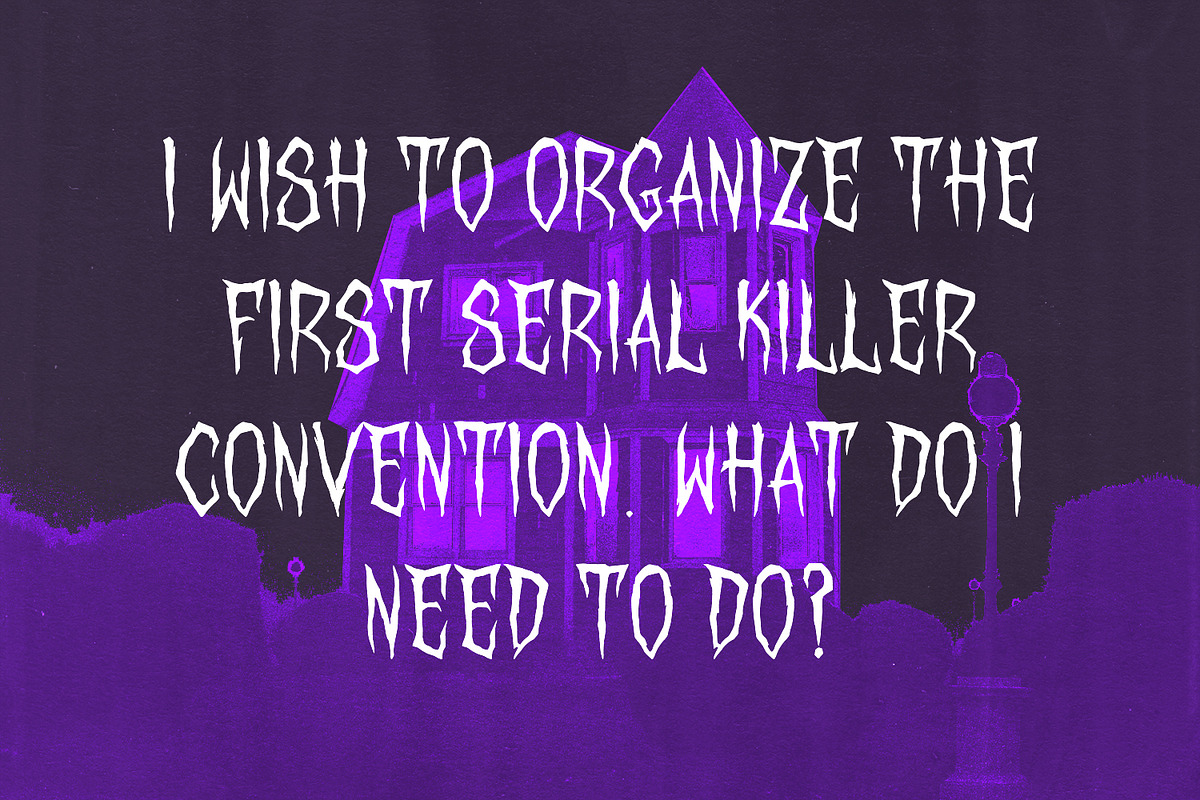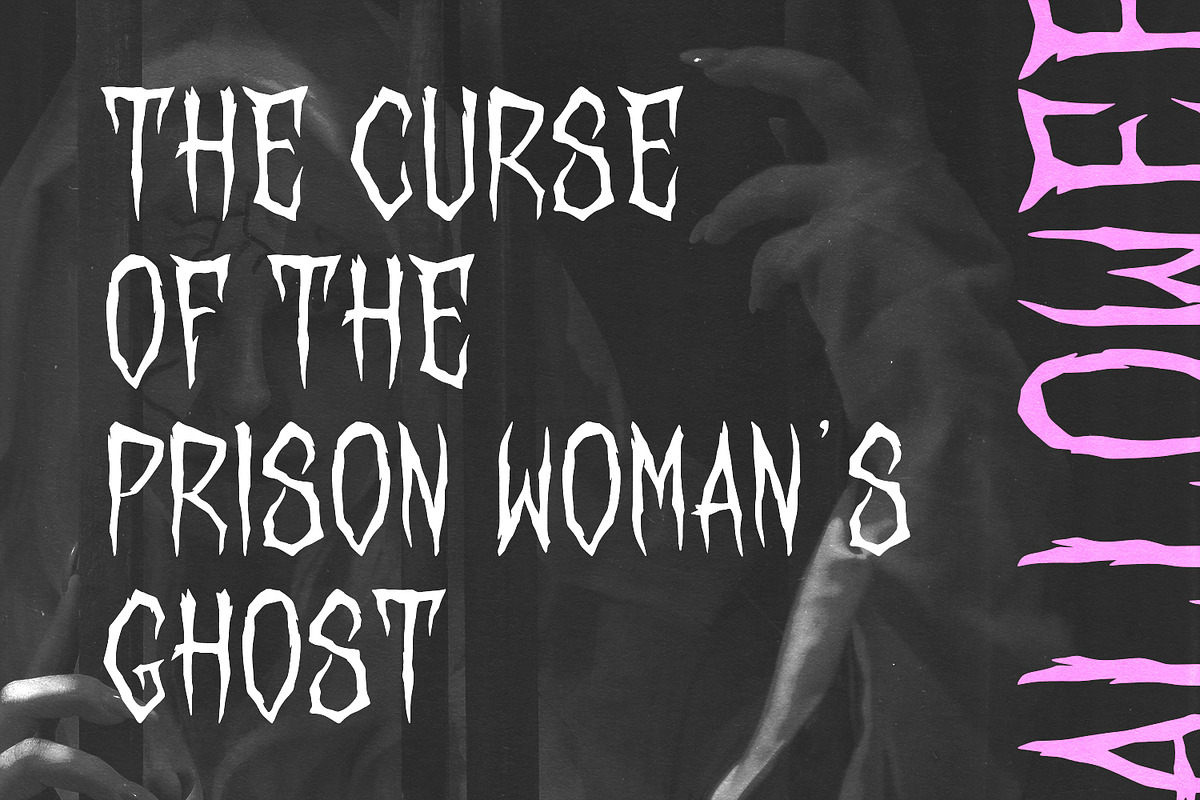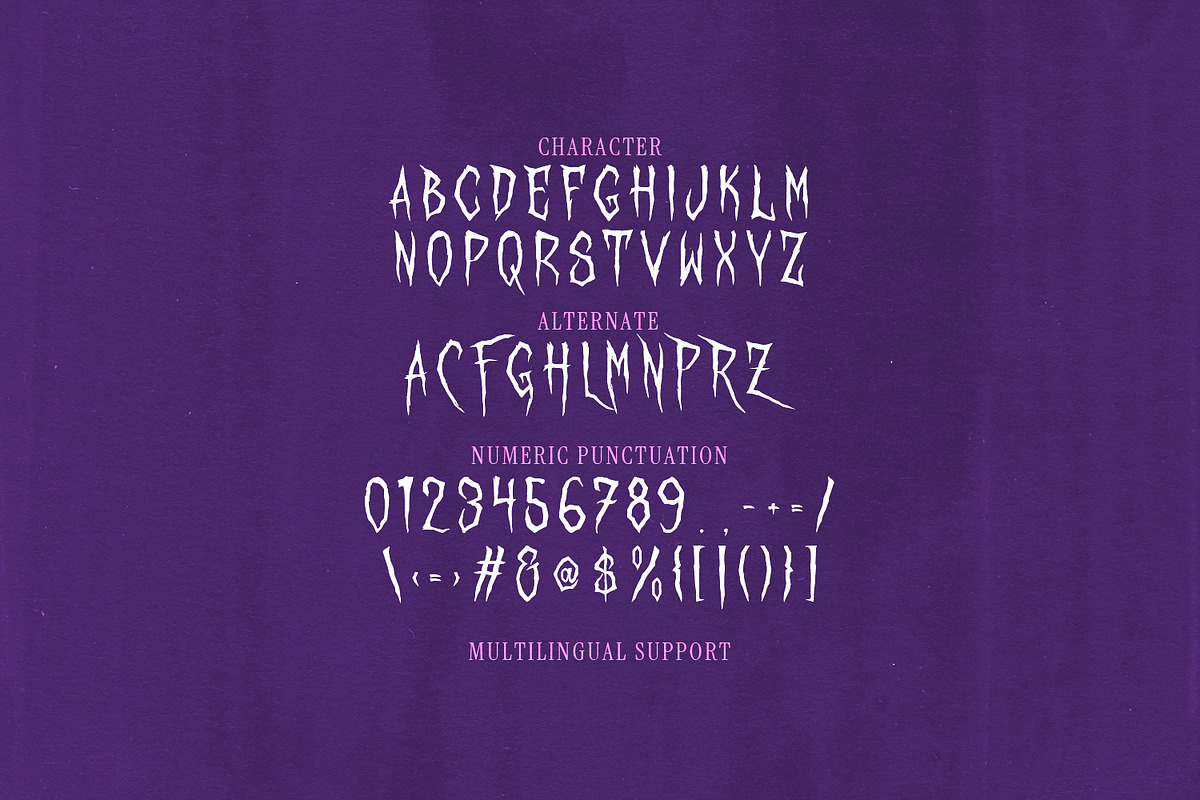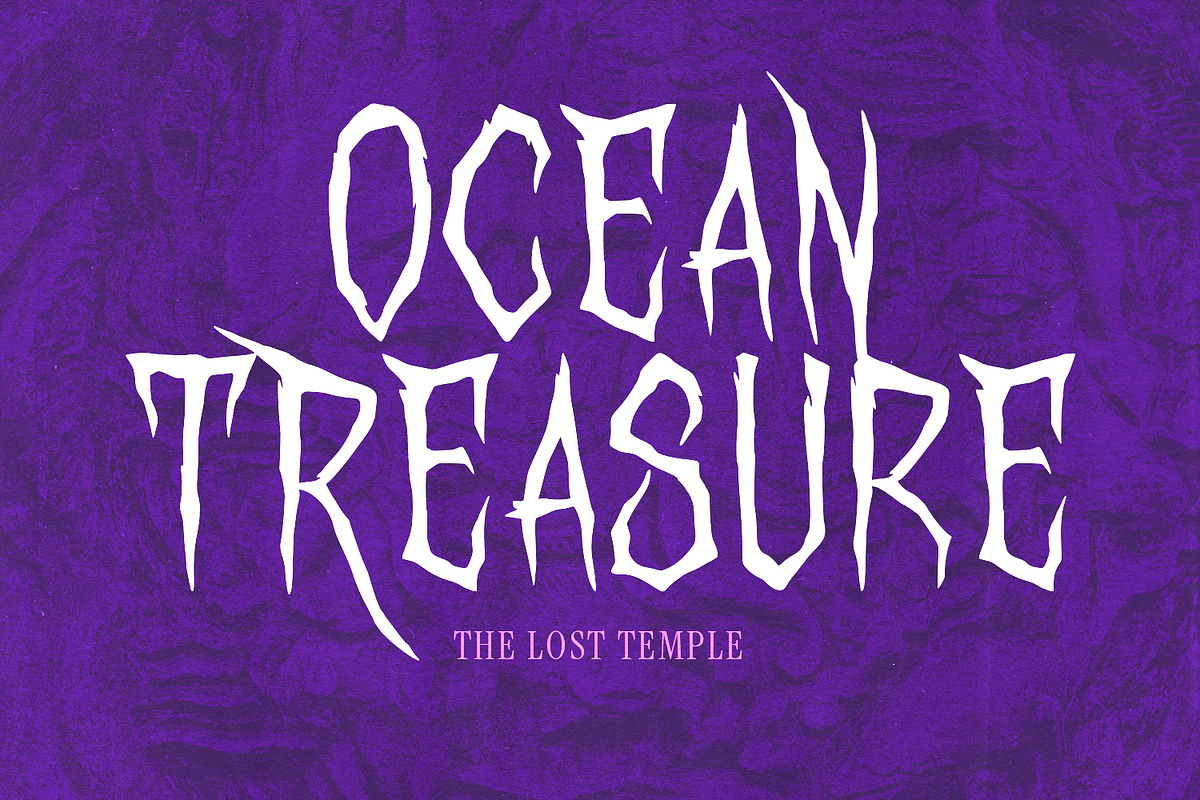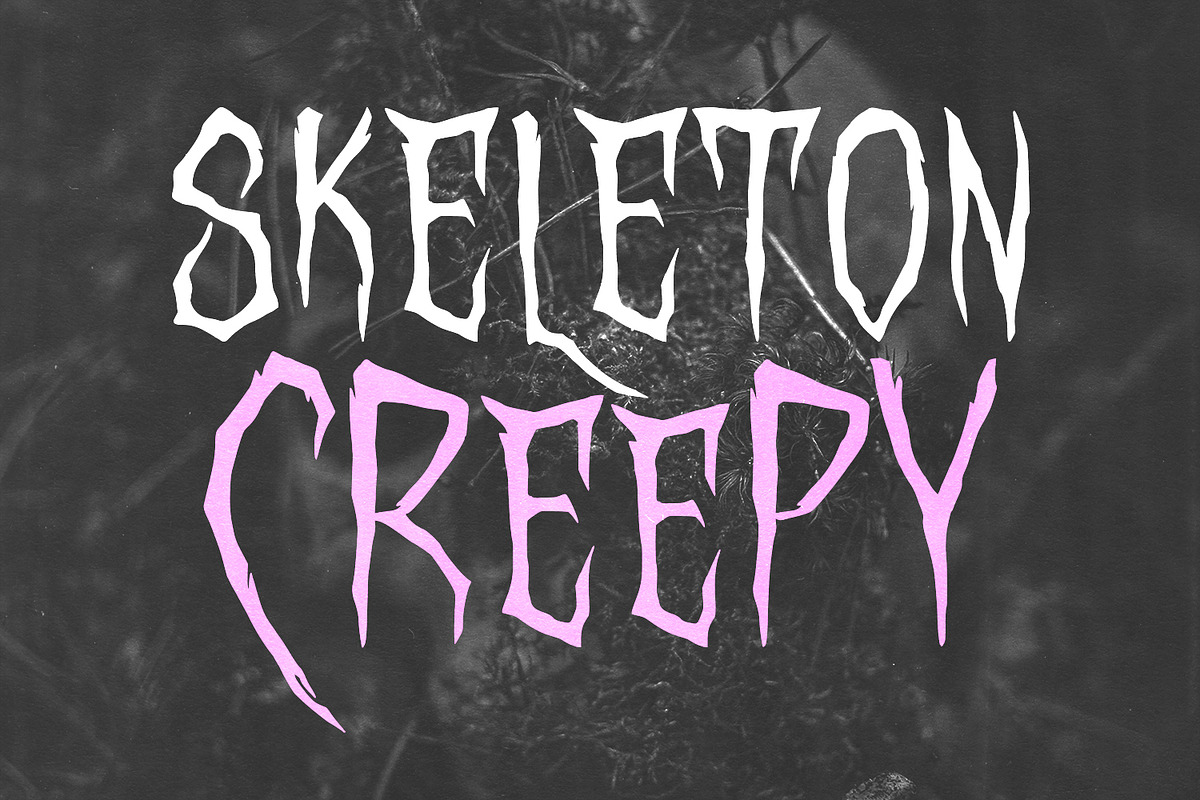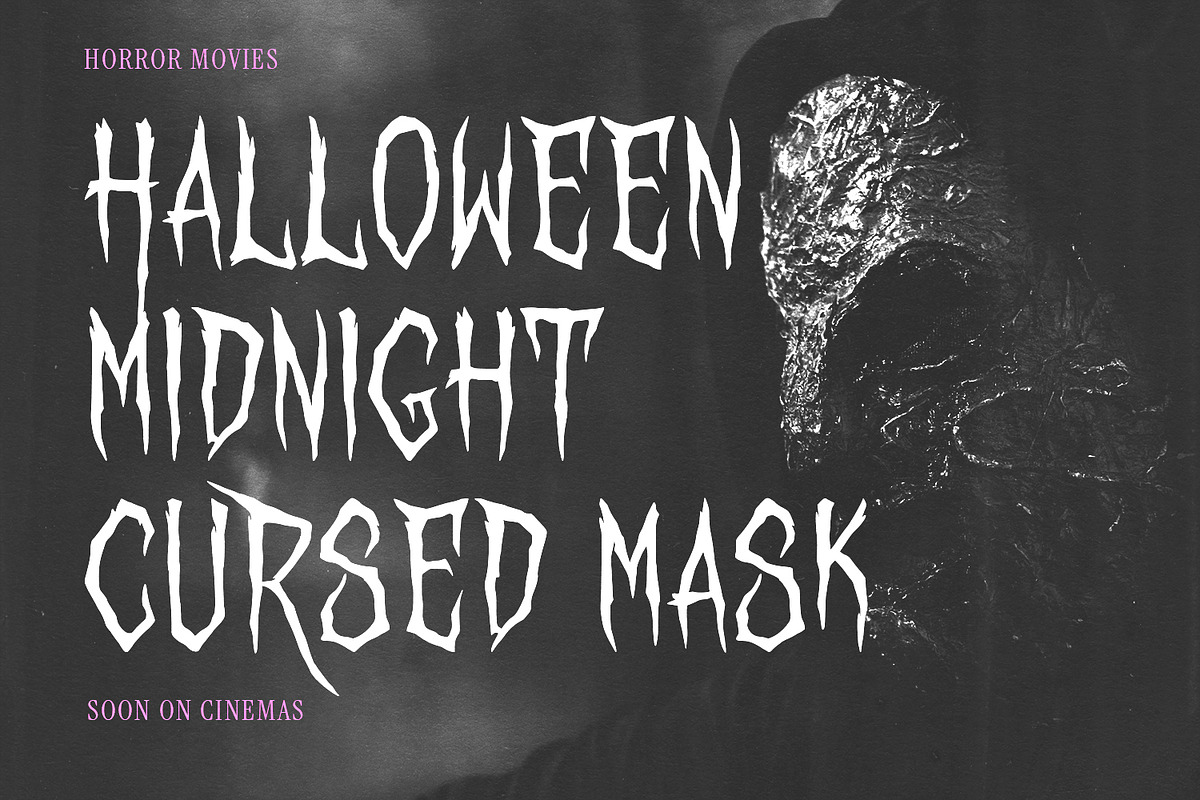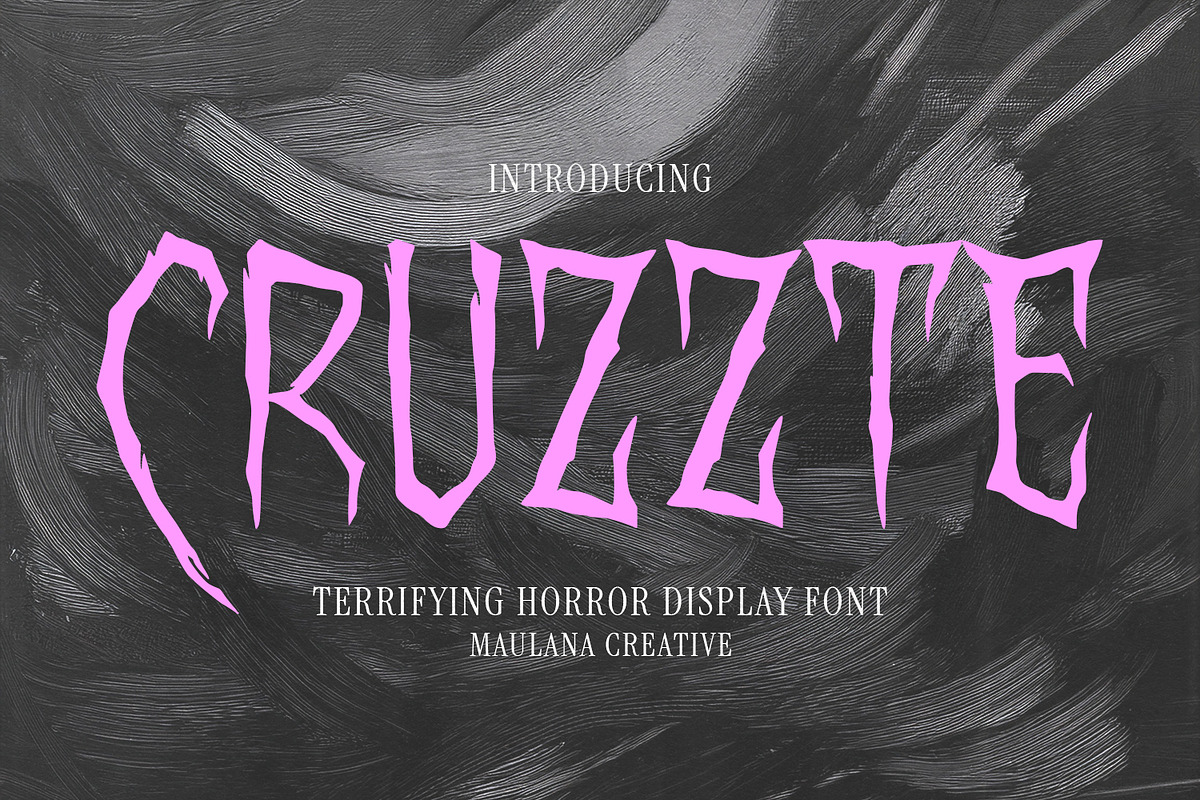
Cruzzte Terrifying Horror Display
Cruzzte is a scary and spooky display font designed to bring a chilling, bone-rattling aesthetic to your projects. With its jagged edges, twisted forms, and dripping-blood appearance, this typeface is perfect for designers looking to create high-impact, terrifying visuals.
Inspired by classic horror movie, slasher flicks, and Gothic imagery, Cruzzte delivers a powerful sense of dread and mystery. The unique, aggressive design of each character ensures your message stands out and grabs the viewer's attention instantly.
- Movie: Horror, thriller, Halloween, and suspense genres.
- Album: Metal, rock, gothic, and dark electronic music.
- Designs and Merch: Edgy, spooky, and alternative.
- Event and Promotions: Haunted houses, Halloween parties, and horror conventions.
- Branding: Escape rooms, spooky brand identities, and video games.